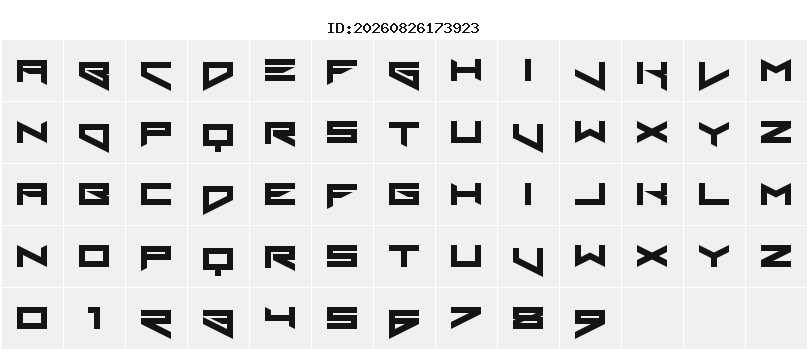
Xero's Theorem Preview
• Font Name: Xero's Theorem
• Full Font Name: Xero's Theorem Regular
• Designer: NAL
• Description: “Xero's Theorem” was built with FontStruct
About Xero's Theorem.ttf
Xero's Theorem.ttf is a modern, elegant sans-serif font designed for ultimate readability and visual harmony. Perfect for branding, headlines, web design, and print materials.